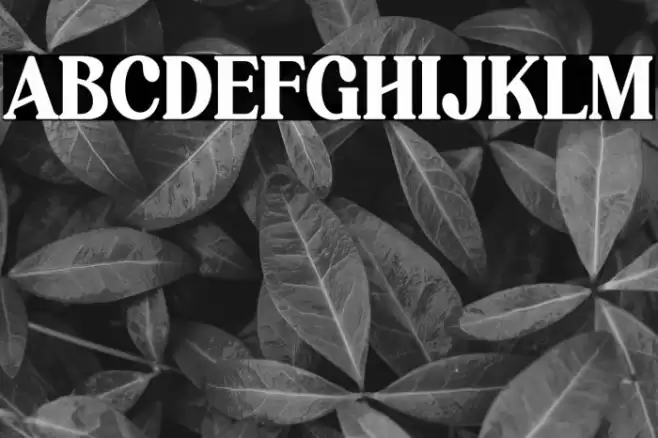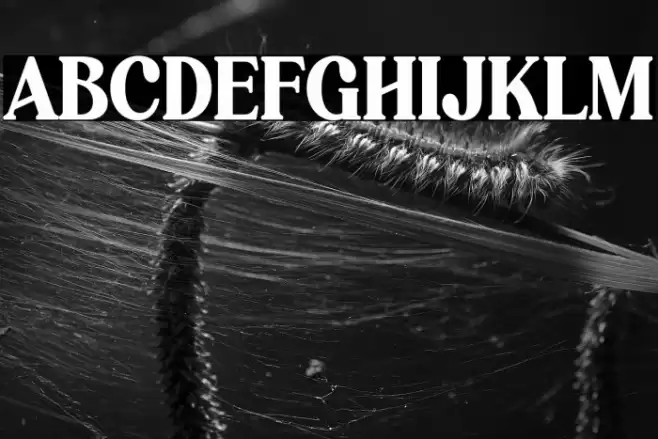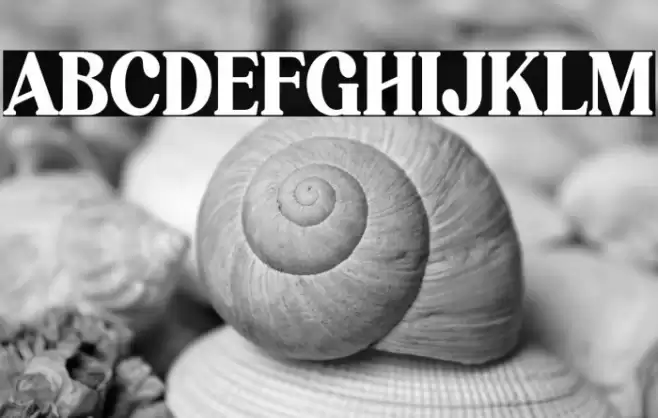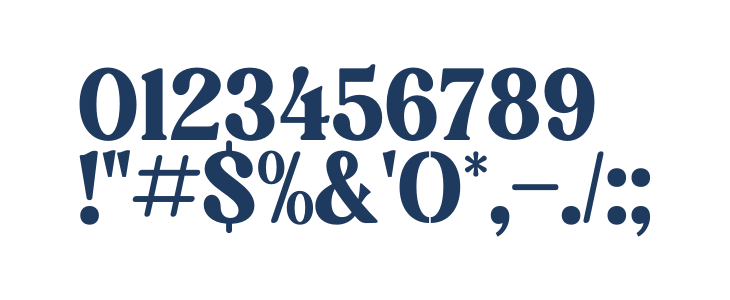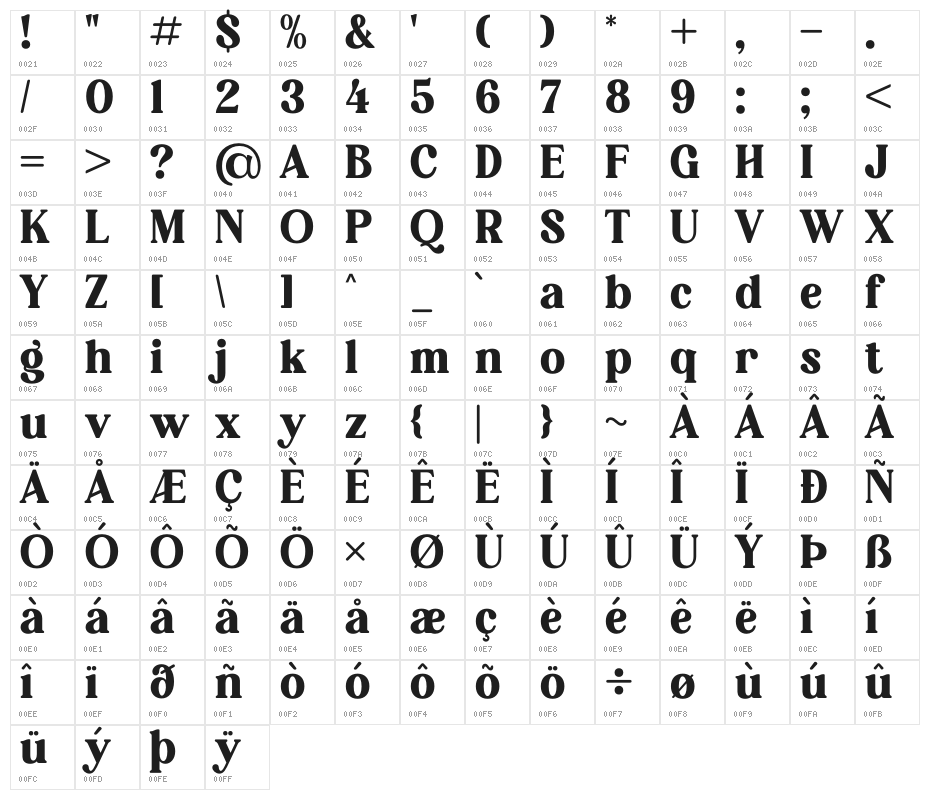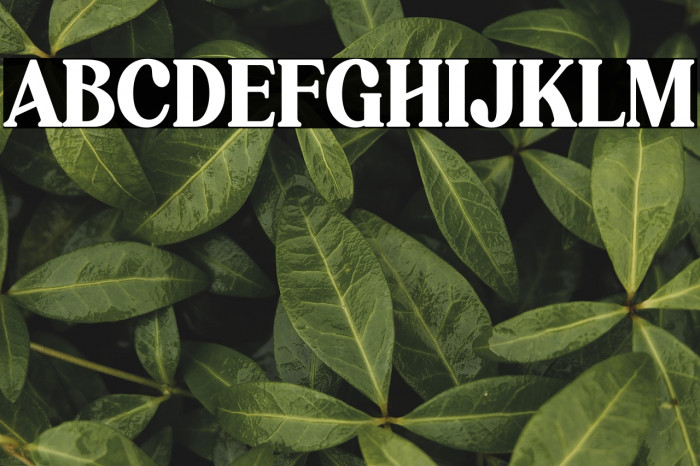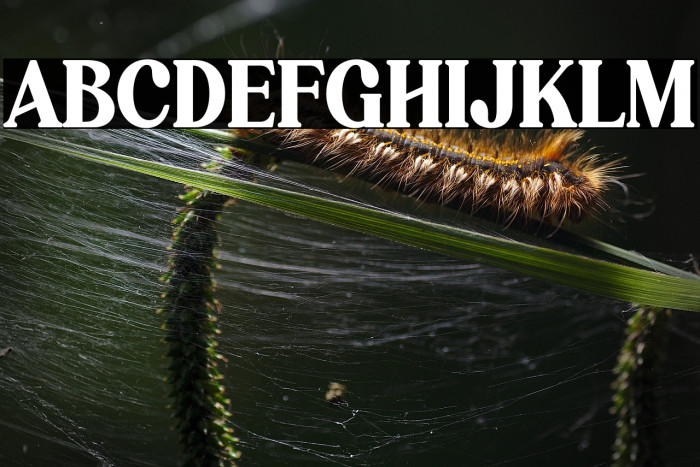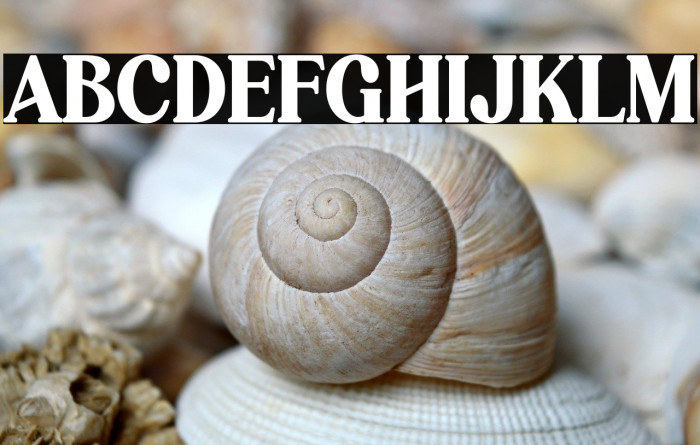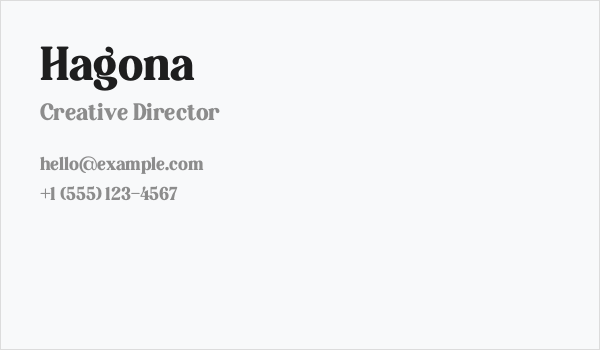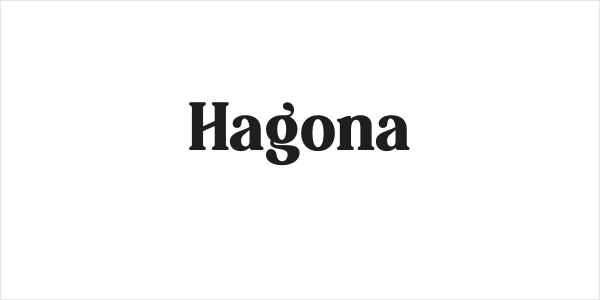
Hagona Font
Hagona Description
This font features a bold and robust serif style with strong, pronounced strokes and a classic appearance. The serifs are thick and slightly curved, adding a touch of elegance while maintaining a solid structure. The uppercase letters are tall and commanding, while the lowercase letters are well-balanced with a consistent x-height. Numbers are equally bold, ensuring readability and impact. Special characters are designed with the same boldness, making them stand out effectively. The overall design is reminiscent of traditional serif fonts but with a modern twist, suitable for making a strong visual statement.
A bold, classic serif font with strong strokes and a modern twist from Uncategorized fonts.
- Font: Hagona
- Proposed Projects: Ideal for headlines, book covers, branding, and editorial design where a strong, classic presence is desired.
- Overall Style: Classic
- Use Case: Headlines, Logos, Editorial design